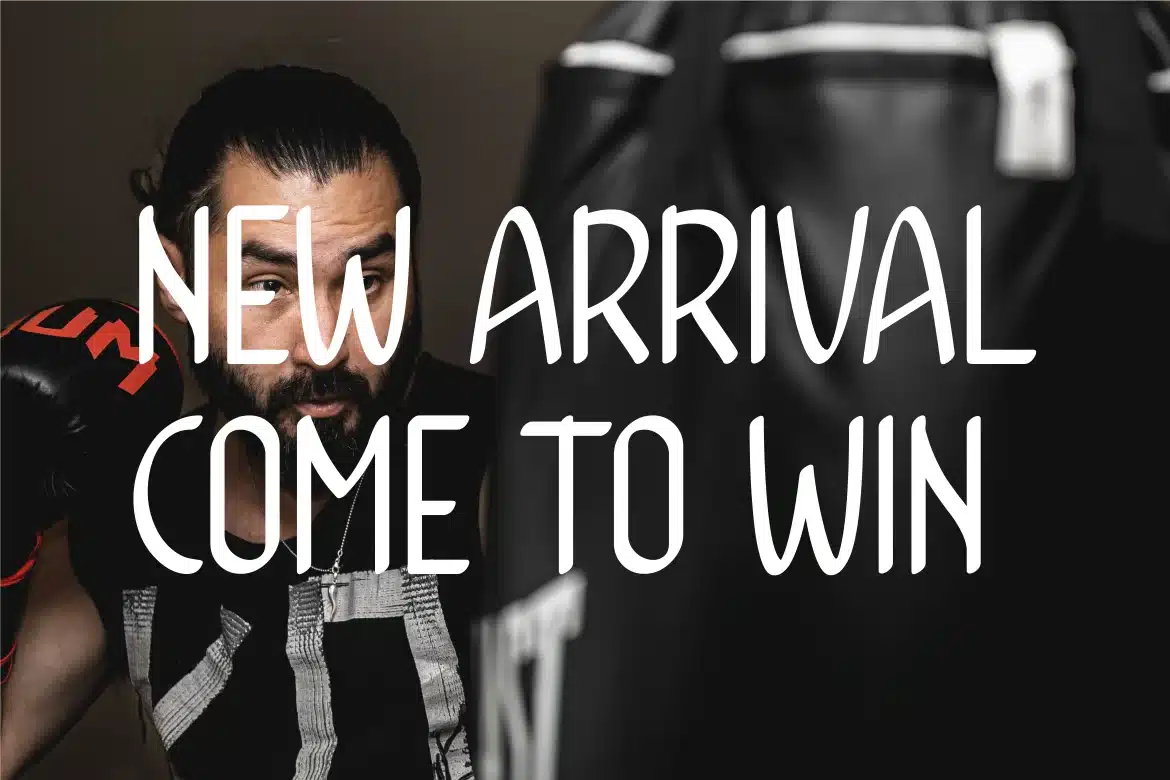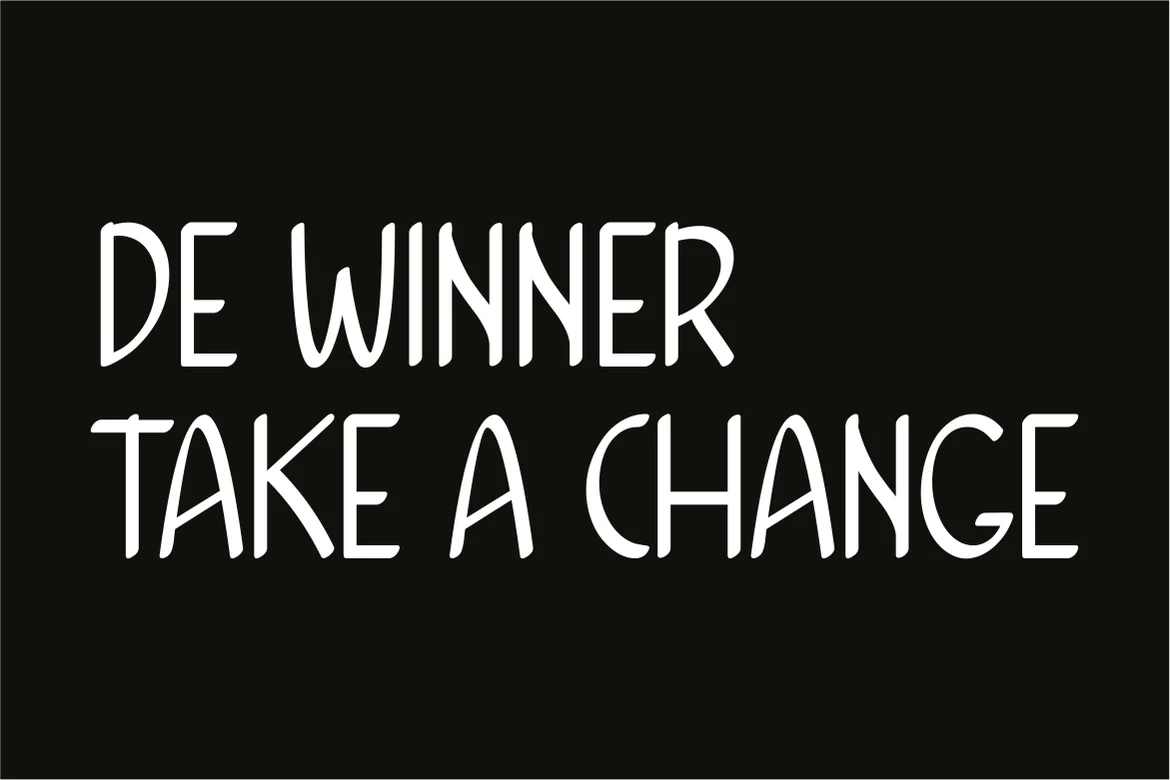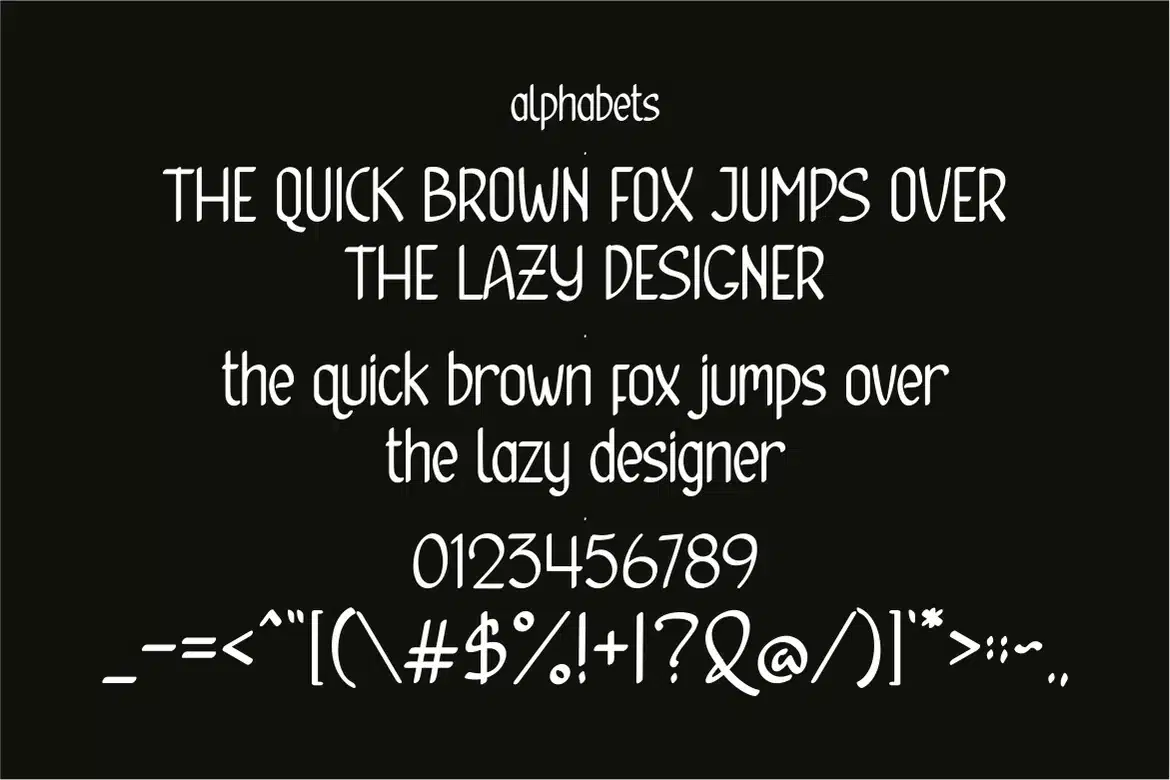
NERVINDRA PRO Font
monoletter
Is an adrenaline font filled with a winning spirit.
This type of font can be used for something that gets the adrenaline going.
in martial arts competitions, extreme sports, or activities that reflect courage.